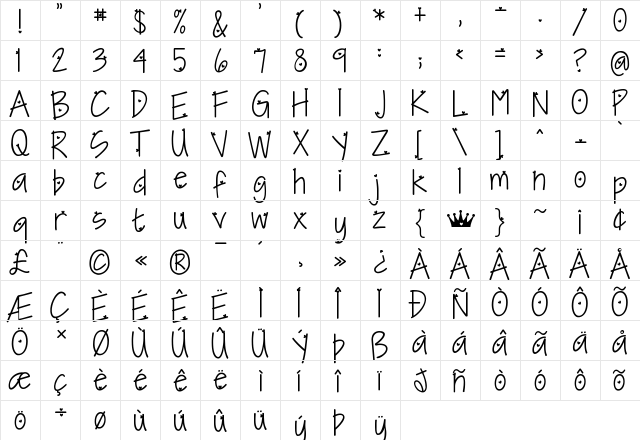
KG I Need A Heart Font Regular
| Foundry | Kimberly Geswein |
| Designer | Kimberly Geswein |
Design Context for KG I Need A Heart Font Typeface
KG I Need A Heart Font is a composed and adaptable typeface that performs quietly and consistently across a wide range of design contexts.